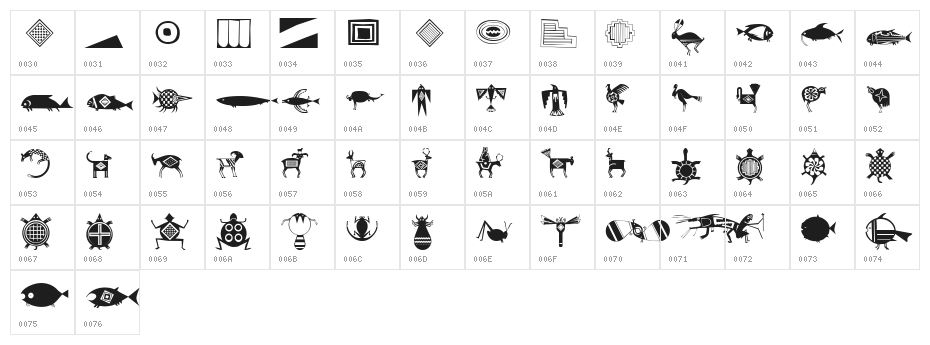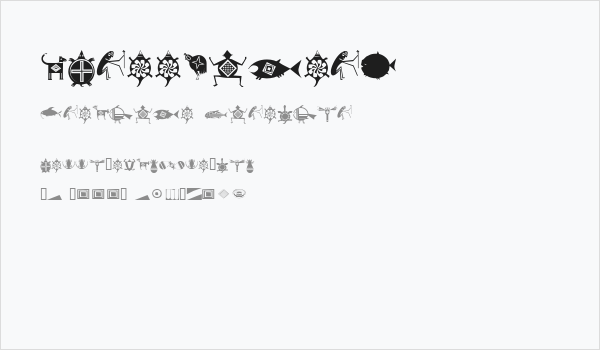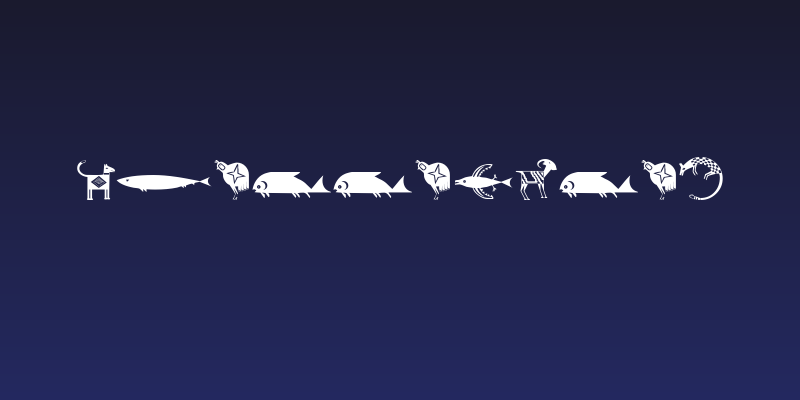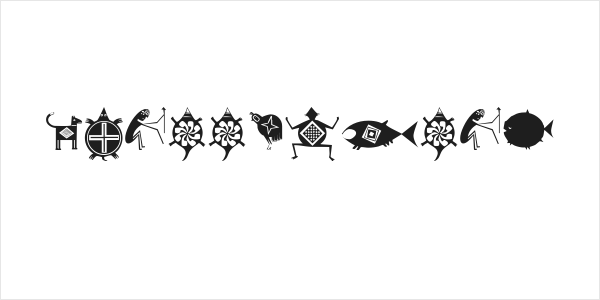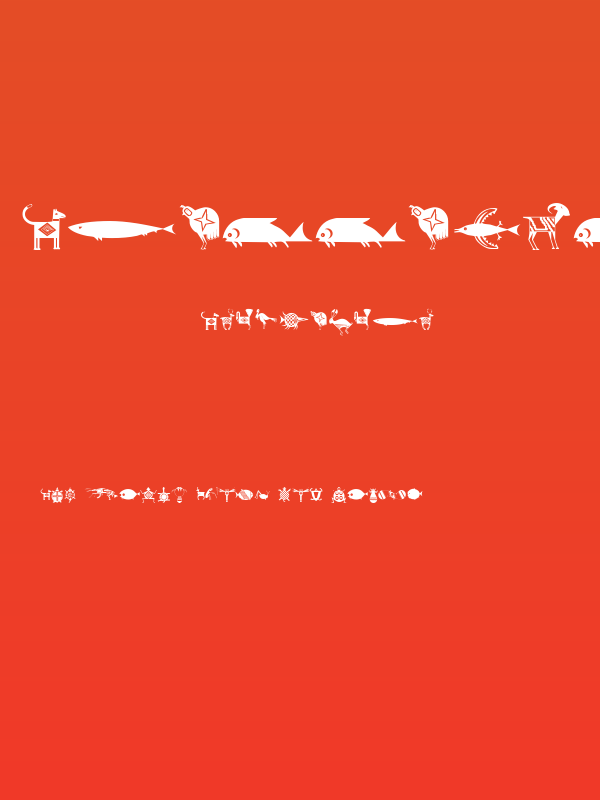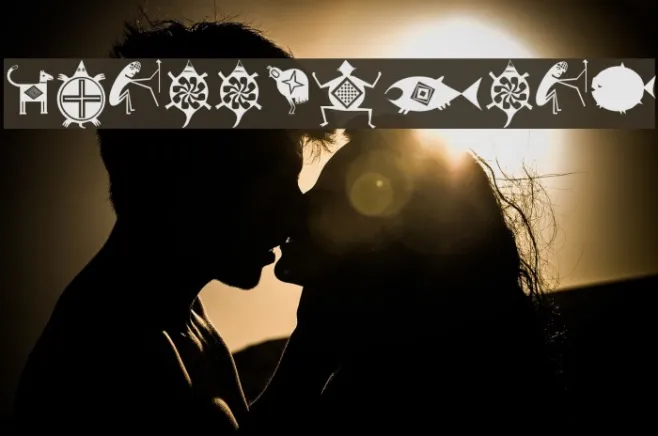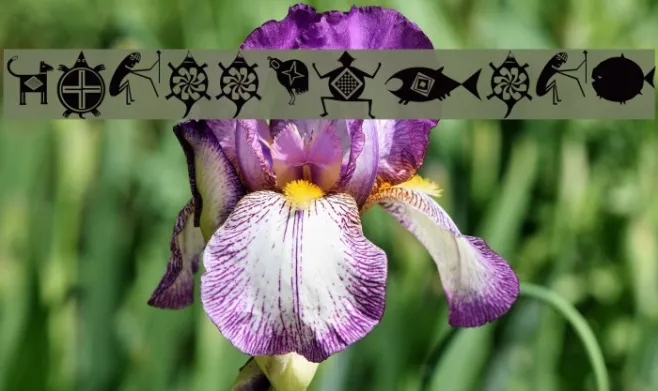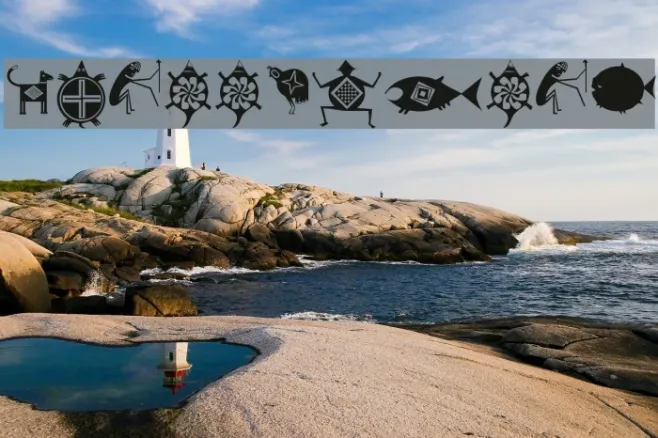
ThreeRivers Font
ThreeRivers Description
This is not a traditional font but rather a collection of decorative symbols and shapes inspired by nature and geometric patterns. The characters are represented by various animals, insects, and abstract designs, each filled with intricate details and patterns. The style is highly decorative, with a playful and artistic flair, making it suitable for creative projects that require a unique and visually engaging element. The symbols are bold and distinctive, capturing attention with their intricate designs and imaginative forms.
| Use Case | Logos, Artistic projects, Decorative elements |
| Proposed Projects | Ideal for artistic projects, branding, logos, and decorative elements in design work where a unique and creative touch is desired. |